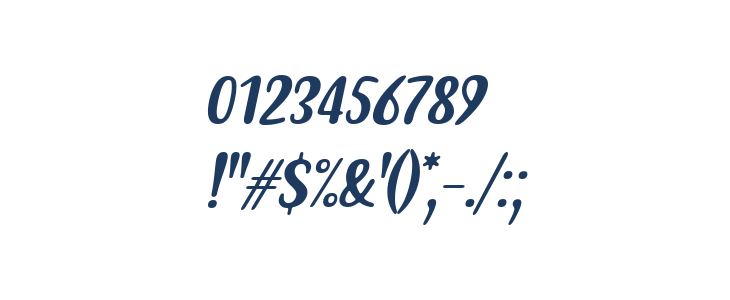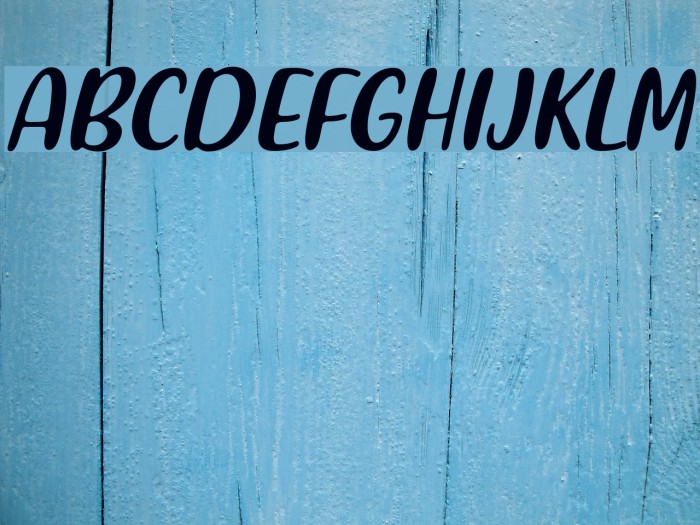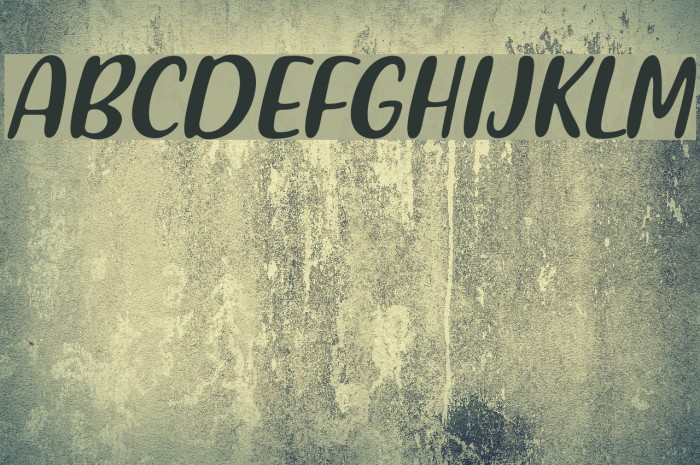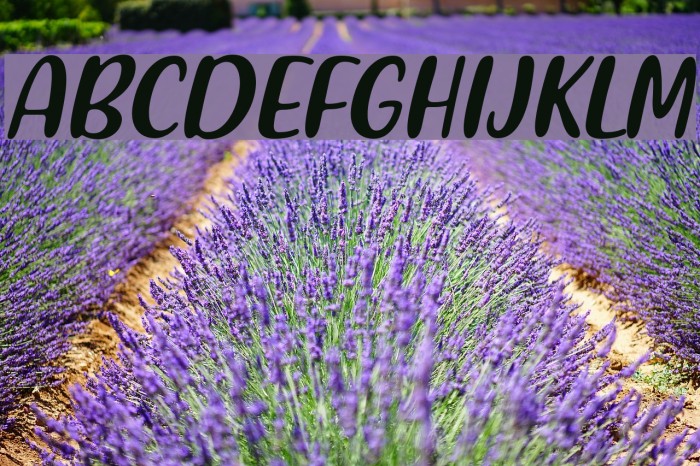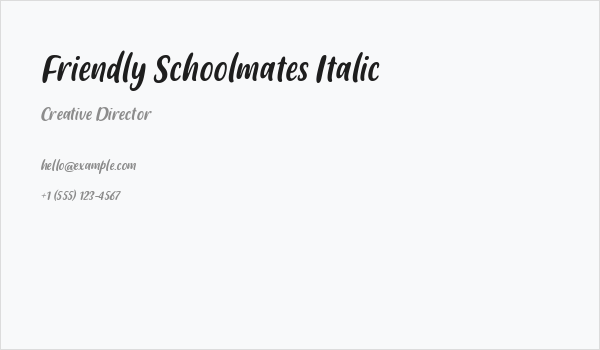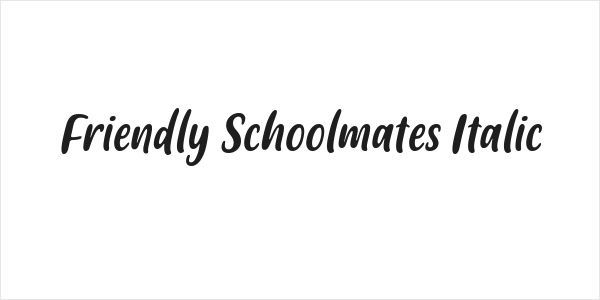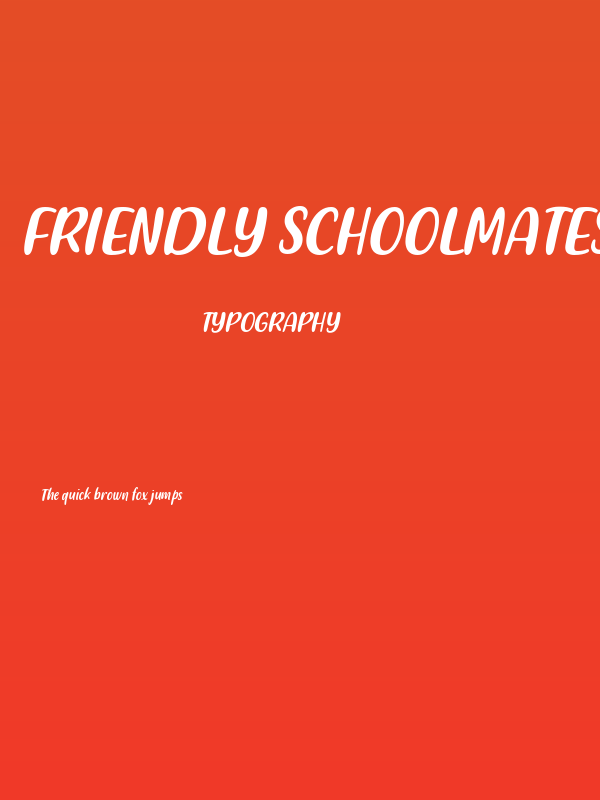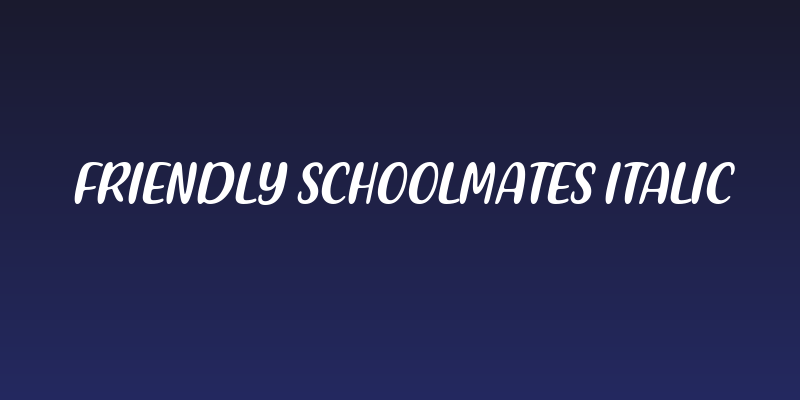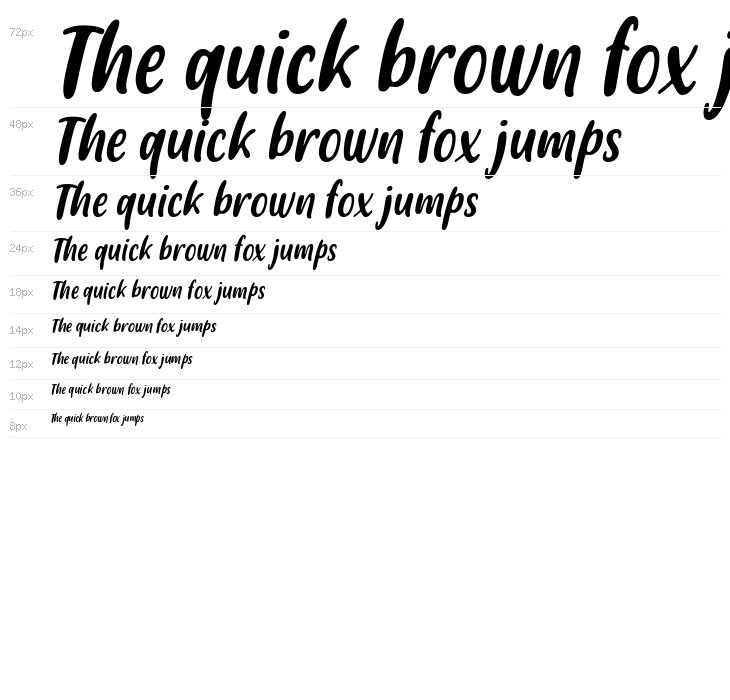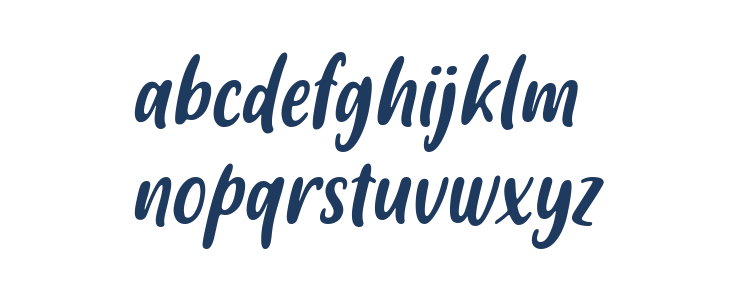
Friendly Schoolmates Italic Font
Friendly Schoolmates Italic Description
This font exudes a playful and friendly vibe, characterized by its smooth, flowing curves and slightly slanted italic style. The letters are bold and rounded, giving a sense of warmth and approachability. The uppercase and lowercase letters maintain a consistent style, with a slight tilt that adds a dynamic feel. Numbers and special characters are designed to match the overall aesthetic, ensuring a cohesive look across all text. The font's design is both modern and inviting, making it suitable for a variety of creative projects.
| Proposed Projects | Ideal for children's books, playful branding, greeting cards, and social media graphics. |